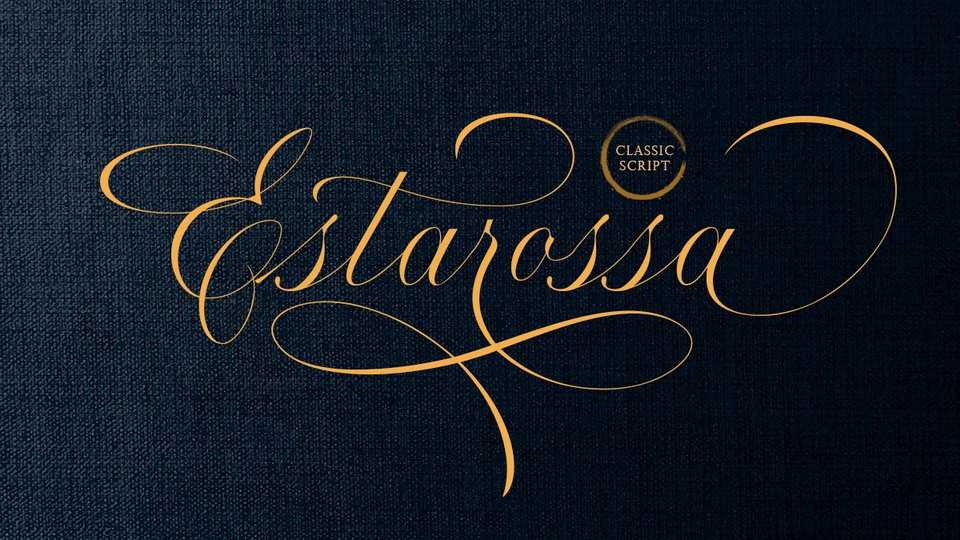
Download Estarossa Script, a beautiful typeface inspired by classic calligraphy. Estarossa Script is perfectly made to be applied especially in logo, and the other various formal forms such as invitations, labels, logos, magazines, books and more.